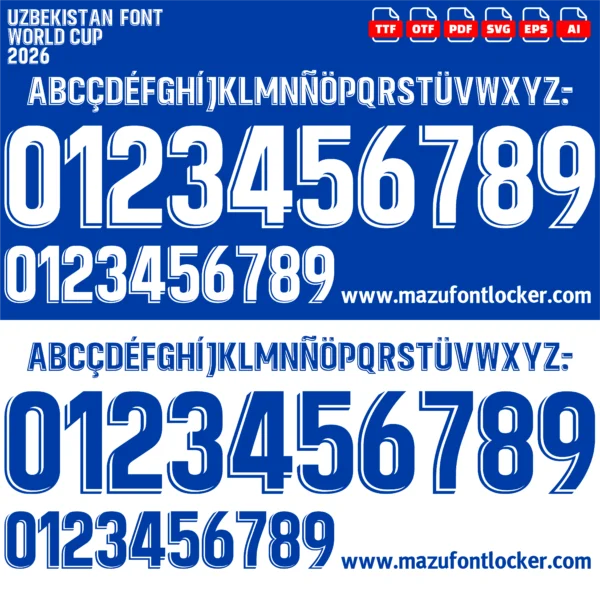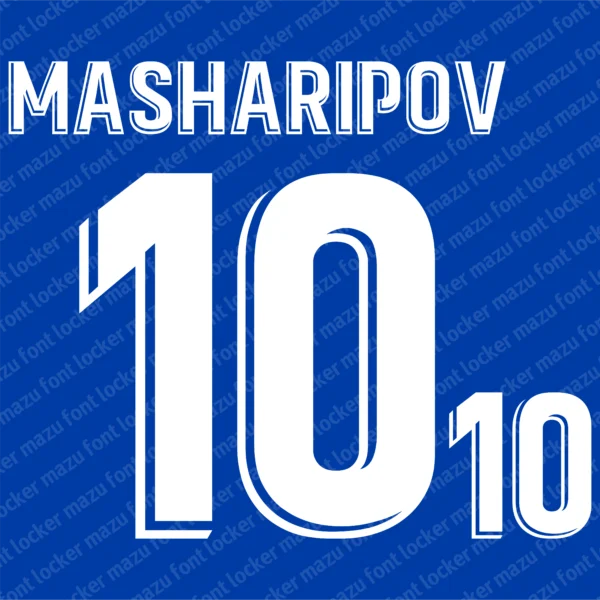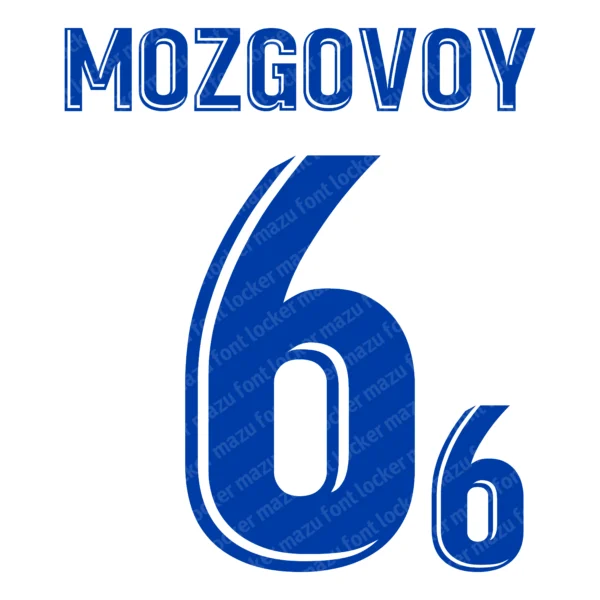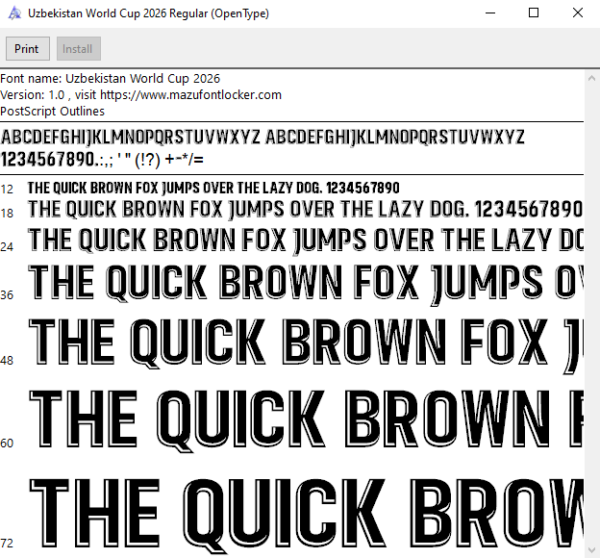
Uzbekistan World Cup 2026 Font Vector – Epic White Wolves Masterpiece
This premium font captures the commanding, majestic, iron-willed war-machine lettering that embodies the unstoppable Uzbek spirit — delivering raw Central Asian fire, explosive national pride, unbreakable resilience, tactical dominance, and legendary warrior grit that made the world tremble.
Uzbekistan World Cup 2026 Font Vector – Authentic White Wolves Typeface
The Uzbekistan World Cup 2026 Font Vector is a premium typeface that accurately recreates the official match lettering worn by the Uzbekistan national team during the 2026 FIFA World Cup campaign. This high-quality vector font kit captures the bold, dynamic, and modern typography that represents the pride, passion, and rich football heritage of the White Wolves.
Designed for professional designers and passionate Uzbekistan fans, the Uzbekistan World Cup 2026 Font Vector delivers perfect authenticity for creating realistic jersey mockups, fan merchandise, matchday posters, social media graphics, and Uzbek football content. It pairs beautifully with the iconic blue, white, and green kit featuring the famous Uzbekistan crest.
Why Choose Uzbekistan World Cup 2026 Font Vector
This font stands out because of its sharp vector precision and strong national identity. Every letter and number is crafted to match the exact style used on the players’ shirts during the 2026 World Cup campaign. Whether you are making realistic kit templates or exciting White Wolves content, the Uzbekistan World Cup 2026 Font Vector gives your designs that authentic Uzbekistan look.
The letterforms in the Uzbekistan World Cup 2026 Font Vector are tall, bold, and highly readable. The strokes have a strong, clean weight with excellent edge definition that looks powerful on the back of jerseys while maintaining classic Central Asian spirit and modern strength.
- Full uppercase A–Z and numbers 0–9 in authentic Uzbekistan World Cup 2026 style
- Multilingual Latin character support including diacritics
- Create highly realistic Uzbekistan World Cup 2026 home and away jersey mockups with accurate lettering
- Design stunning match posters, score graphics, and squad announcements
- Produce custom Uzbekistan merchandise with the 2026 aesthetic
- Includes the exact crest glyph placement used under player numbers